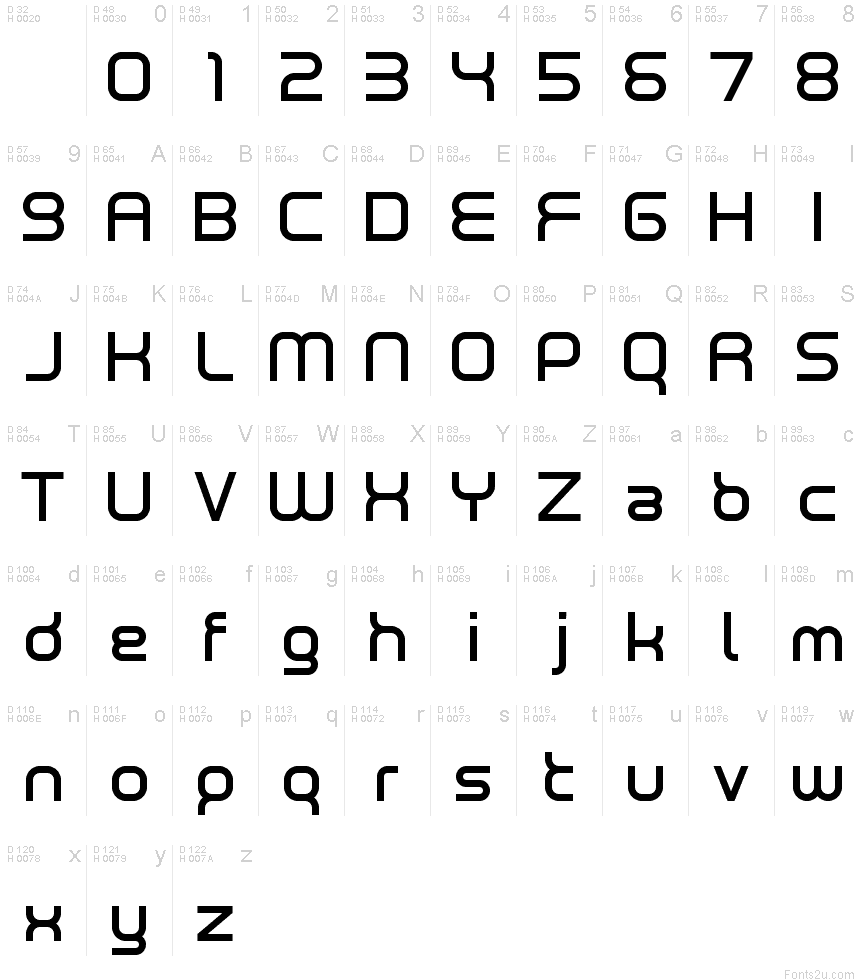
Neutron Demo
Neutron by Andreas Nylin is a free futuristic display font with rounded, modular forms and a compact, tube-like silhouette. Its softened corners and even rhythm make the letters feel assembled from simple geometric pieces rather than drawn with sharp edges.
It suits sci-fi titles, tech branding, poster graphics, logo marks, and album covers, where the rounded geometry keeps the lettering organized and futuristic. The same structure keeps those applications from turning too sharp, cramped, or ornamental, so it carries across compact layouts and narrow headers with ease.